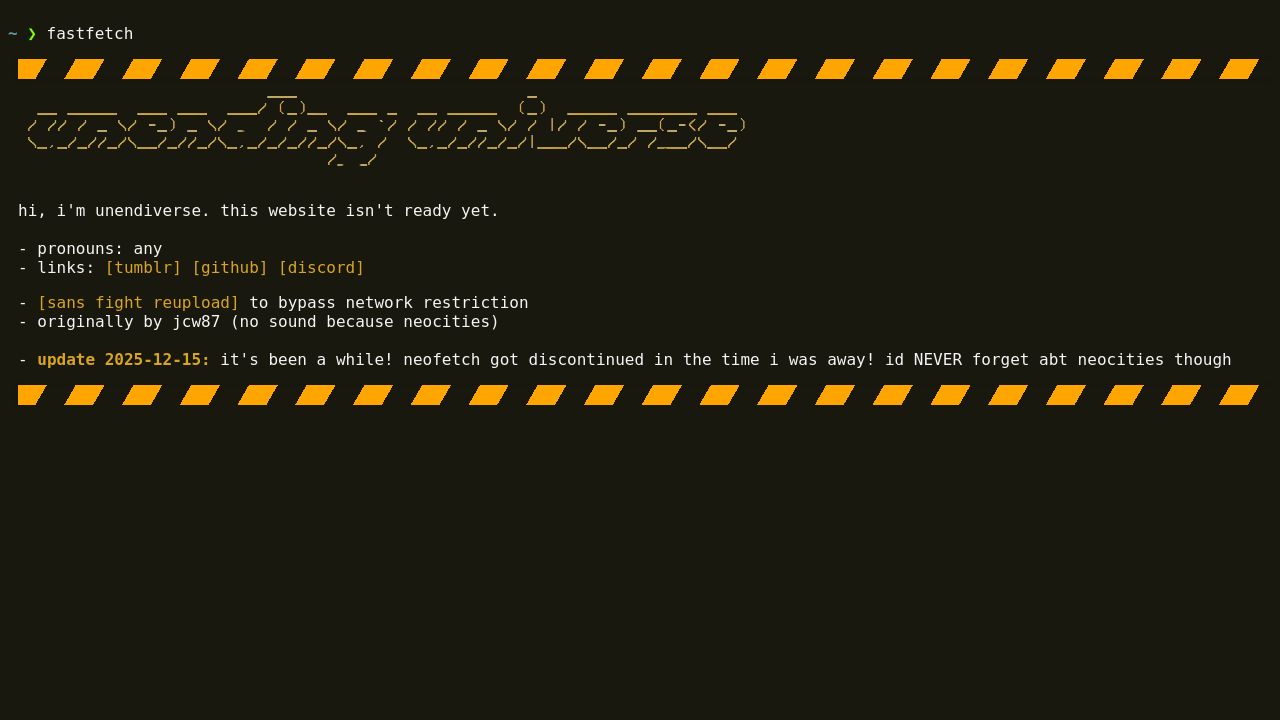
Unendiverse.neocities.org uses Azeret Mono as its main typeface. 1 font detected, last checked Sep 28, 2026.
unendiverse.neocities.org is an intriguing platform that explores the realms of creativity and imagination. The use of Azeret Mono as the primary font creates a distinctive visual identity, suggesting a blend of modernity and clarity. This choice resonates with an audience that appreciates straightforwardness and a unique artistic flair. By adopting a custom font like Azeret Mono, unendiverse effectively communicates its commitment to originality and thoughtful design, enhancing the user experience while navigating its diverse content.
The primary font used on unendiverse.neocities.org is Azeret Mono, which provides a clear and unique typographic style for the website.
Azeret Mono offers a distinctive character compared to other monospace fonts, with its unique design elements that enhance readability while maintaining a modern aesthetic.
Azeret Mono is available in weight 400, making it suitable for various applications on unendiverse.neocities.org, providing consistency in typography.